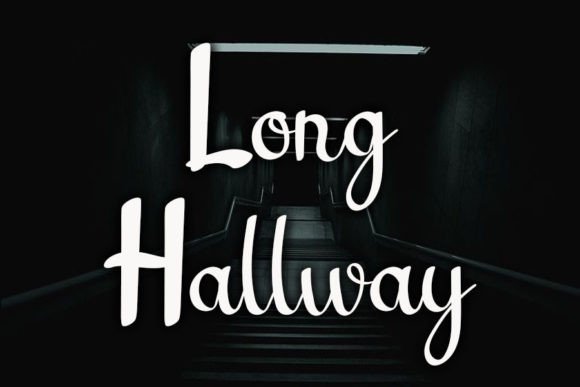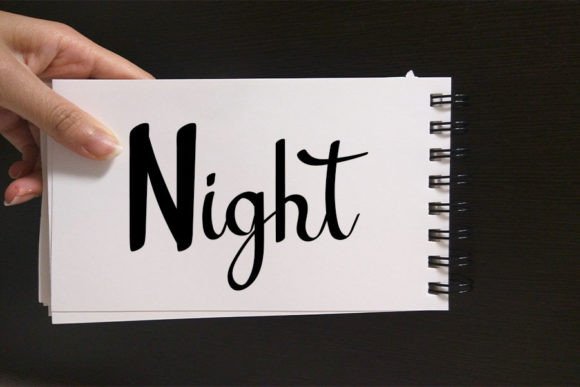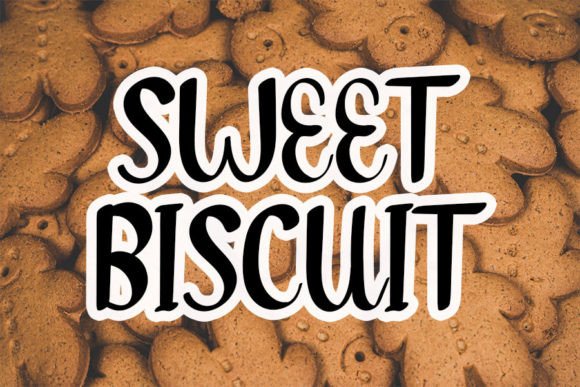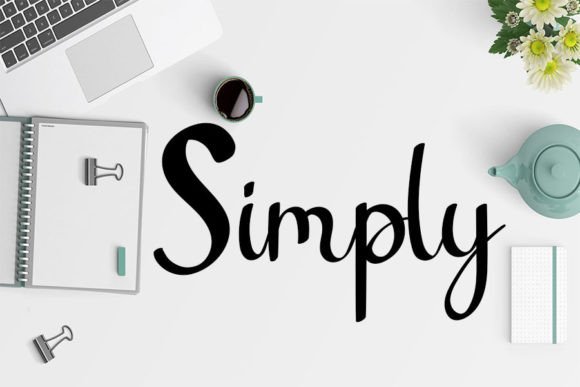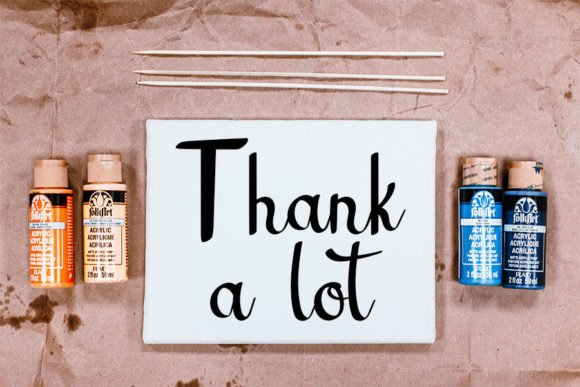
Scary Font
Add a magical and elegant vibe to your creative projects with the Scary font. This handwritten script is carefully designed to blend cleanliness with a quirky touch. It is perfect for logos, branding, social media posts, and crafty DIY projects.
The Scary font features smooth, well-balanced strokes that make your work both beautiful and easy to read. Its unique style adds personality and charm, helping your designs stand out with a refined yet playful look.
Whether you are creating logos, branding materials, or social media graphics, the Scary font fits well with many design needs. Its versatility allows it to adapt across various platforms and project types.
Despite its elegant and magical appearance, the Scary font maintains excellent readability at all sizes. Whether used for bold headings or subtle decorative accents, it enhances your creative work with flair and style.
Using this font will help your projects gain a memorable and enchanting style. If you want to add sophistication mixed with a quirky edge, the Scary font is an excellent choice.
In summary, the Scary font suits a wide range of creative projects. From logos and branding to social media and DIY crafts, it adds elegance and whimsy. Download it today and create stunning, magical designs with this handwritten script.